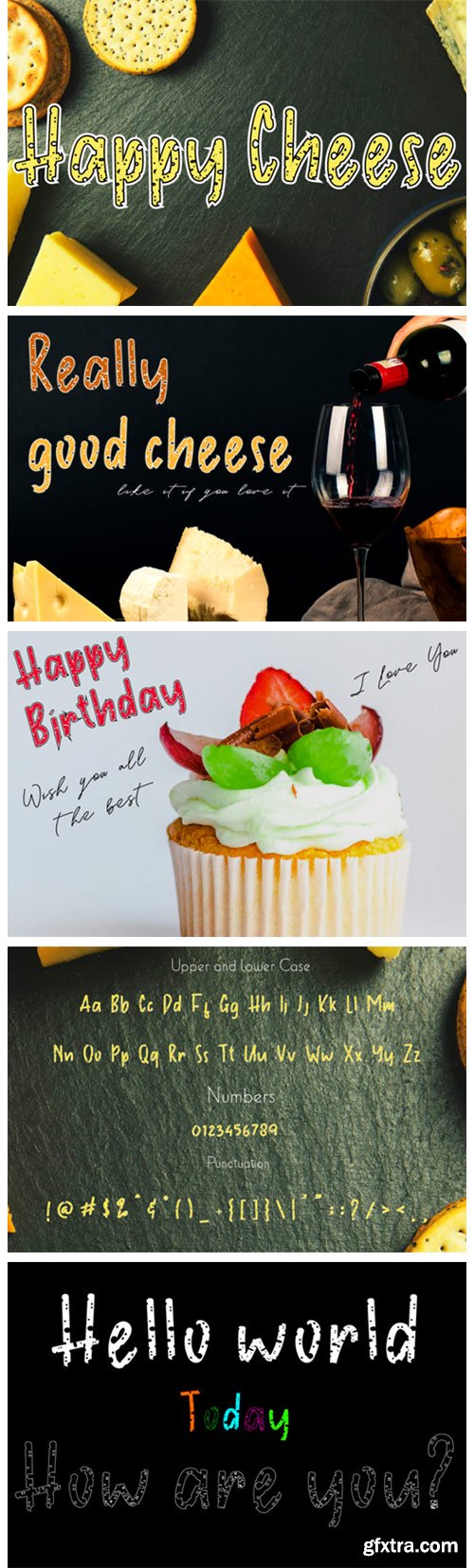
Happy Cheese Font
Happy Cheese is a unique and interesting display font. A little bit quirky, this font looks incredibly adept on a wide variety of contexts!